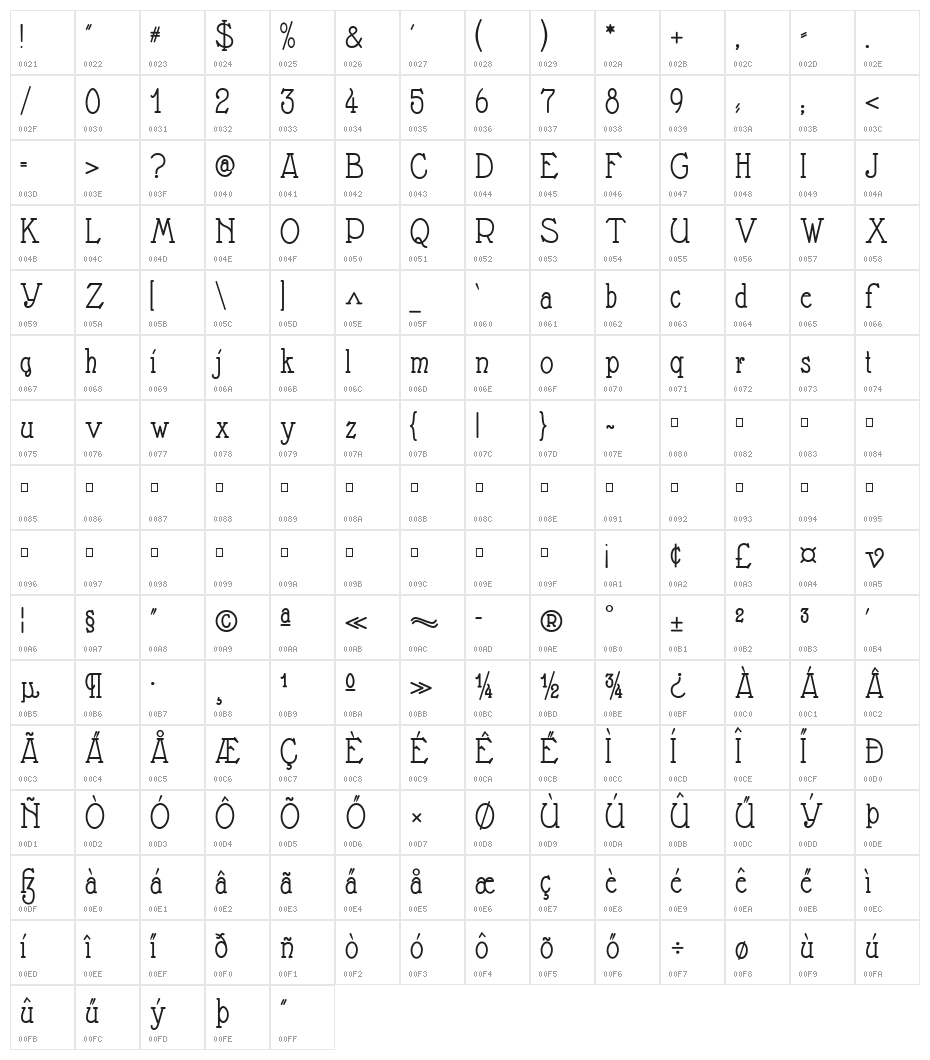
Nathan Font
Nathan Description
This font features a unique blend of classic and modern elements, characterized by its distinct serif style. The uppercase letters exhibit a bold and structured form, while the lowercase letters maintain a more fluid and approachable appearance. The numerals are clear and easy to read, with a consistent weight that complements the alphabetic characters. Special characters are well-defined, adding versatility to the font's application. The overall design is both elegant and functional, making it suitable for a variety of uses.